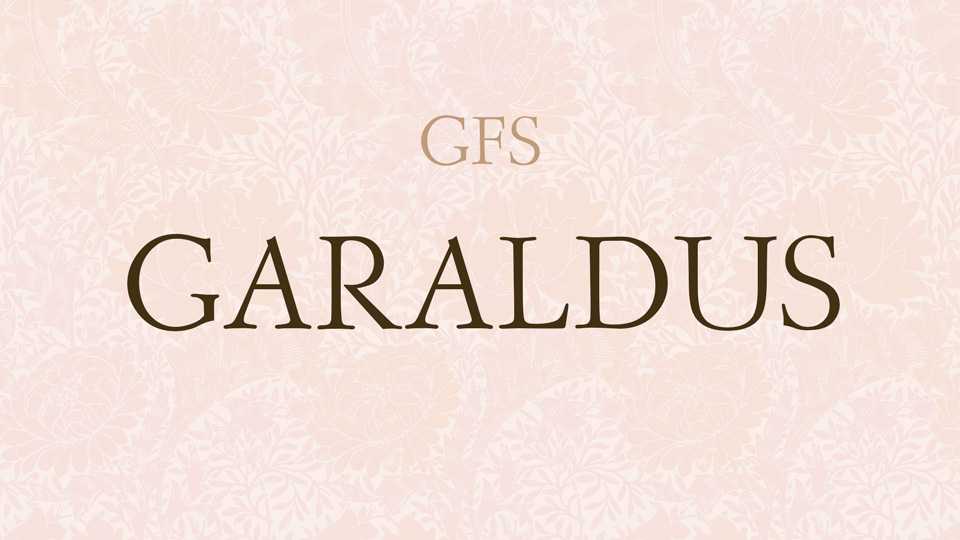
Download GFS Garaldus font, an old style display serif typeface, inspired by Venetian tradition of the sixteenth century. GFS Garaldus supports Latin and Greek languages.
Designer: Greek Font Society